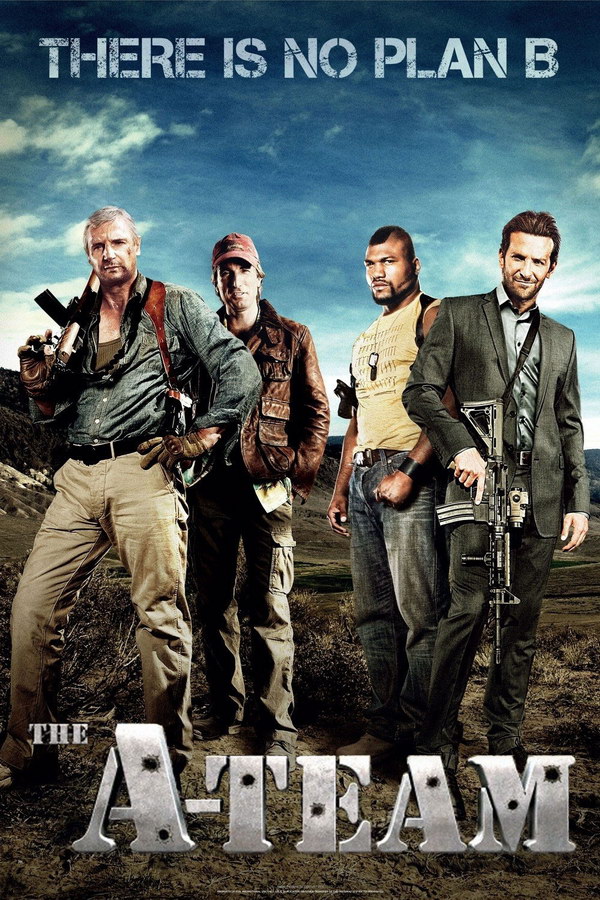
The A-Team Font
Fonts in UseThe A-Team is an action-comedy film released in 2010, following a group of ex-military soldiers who are wrongly accused of a crime and become mercenaries, using their unique skills to clear their names and help those in need.
The movie "The A-Team" features a title set in Stencil, a commercial typeface created by Gerry Powell for American Type Founders in 1938. More details can be found here.